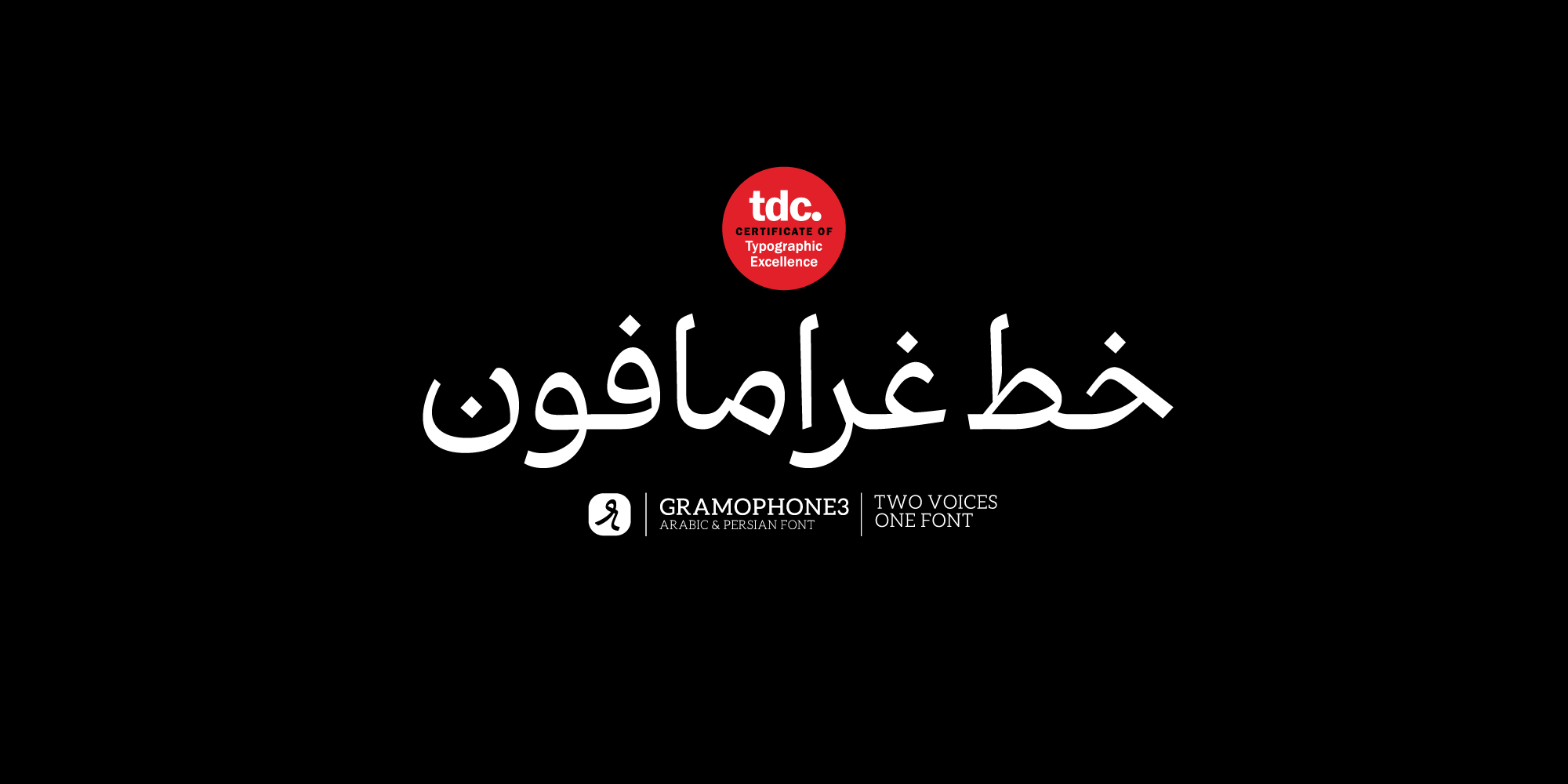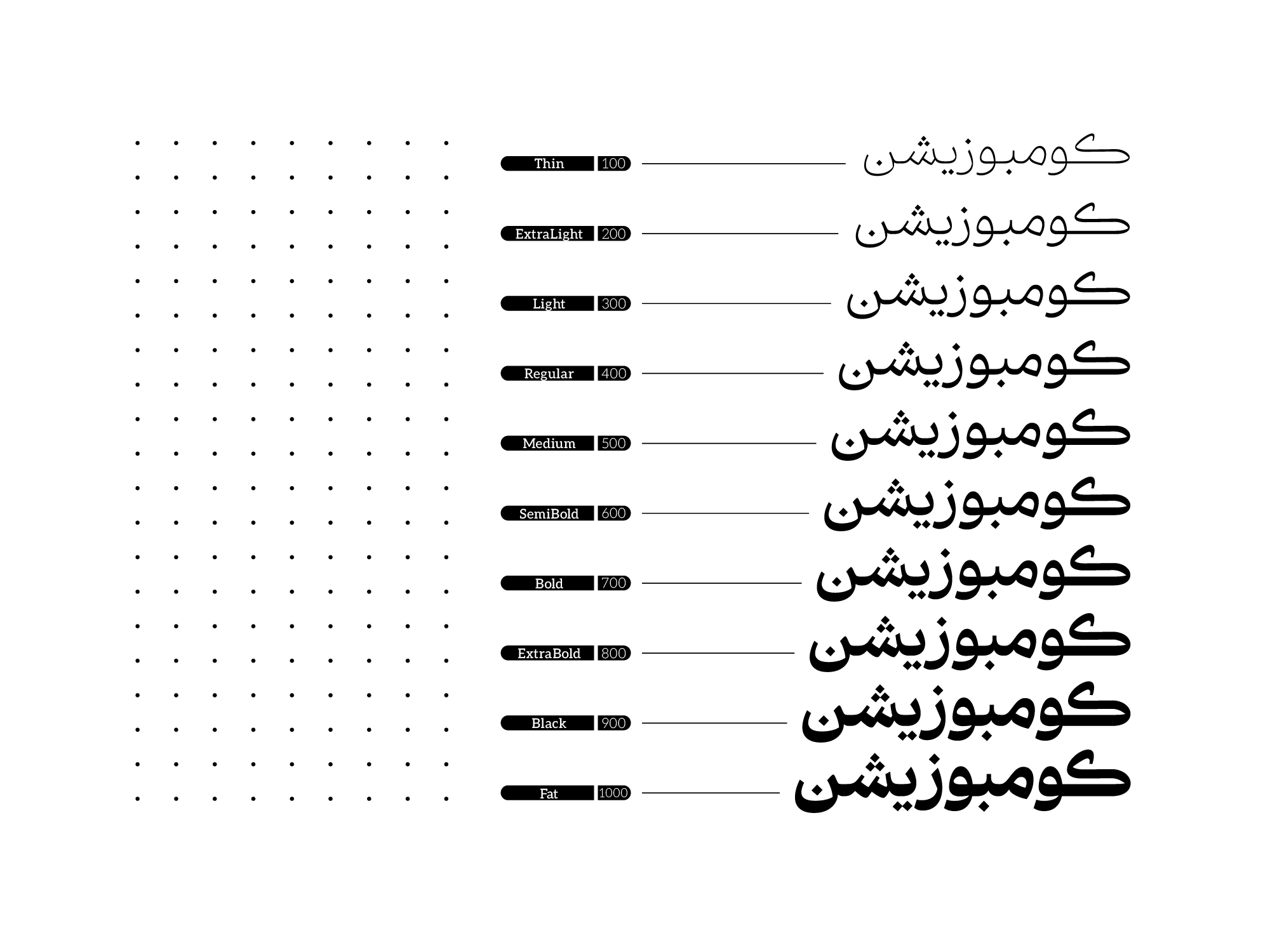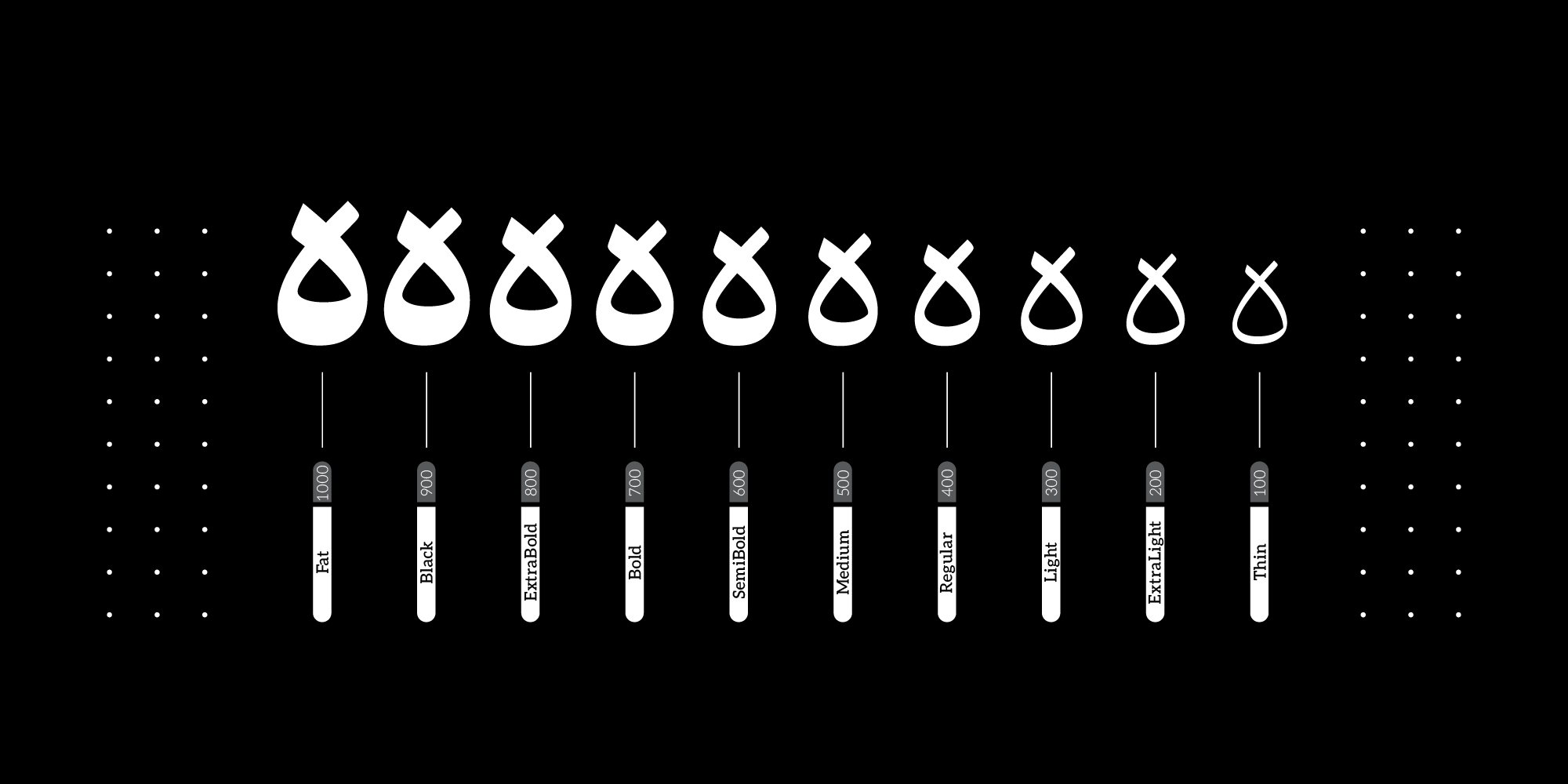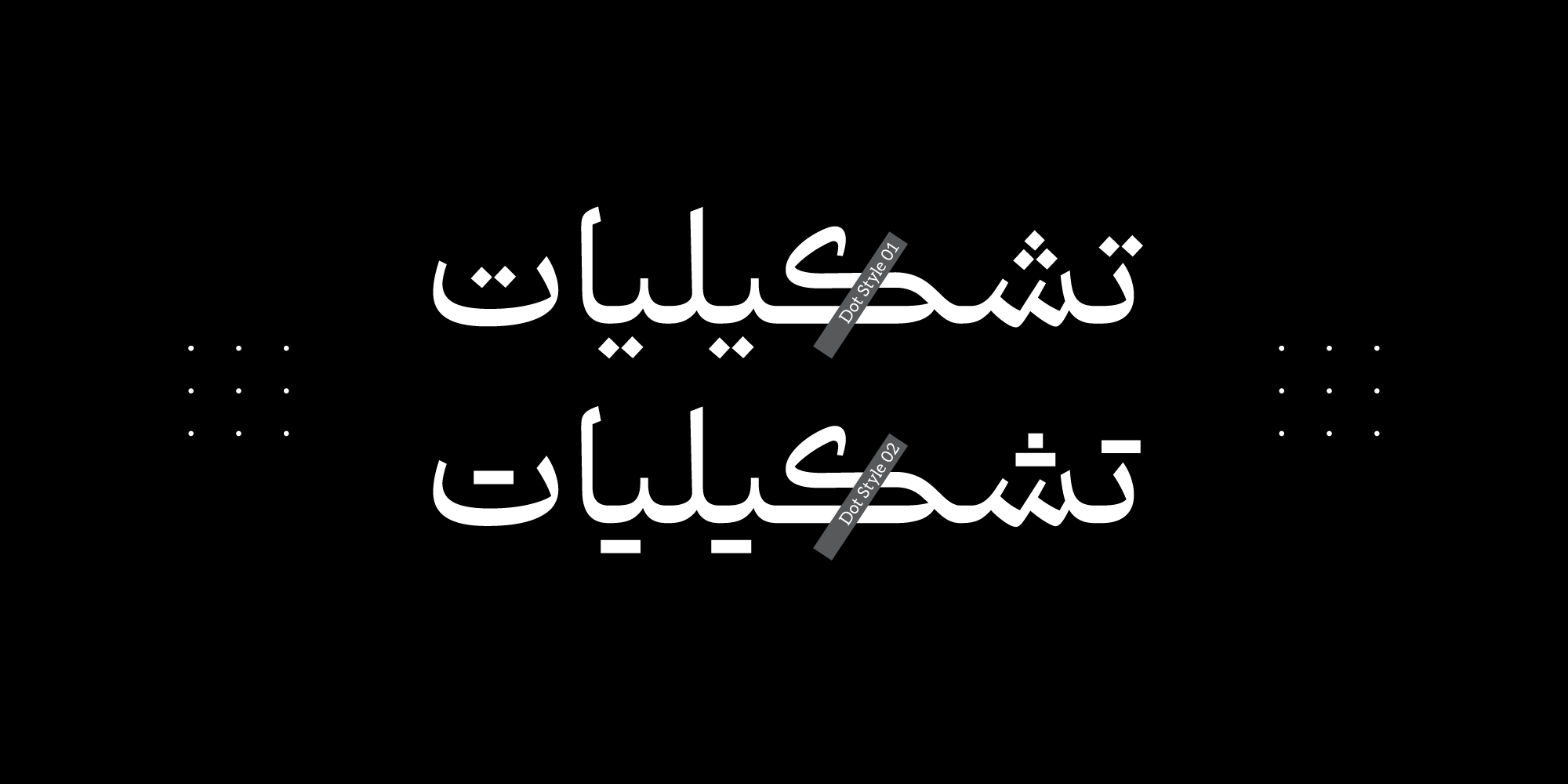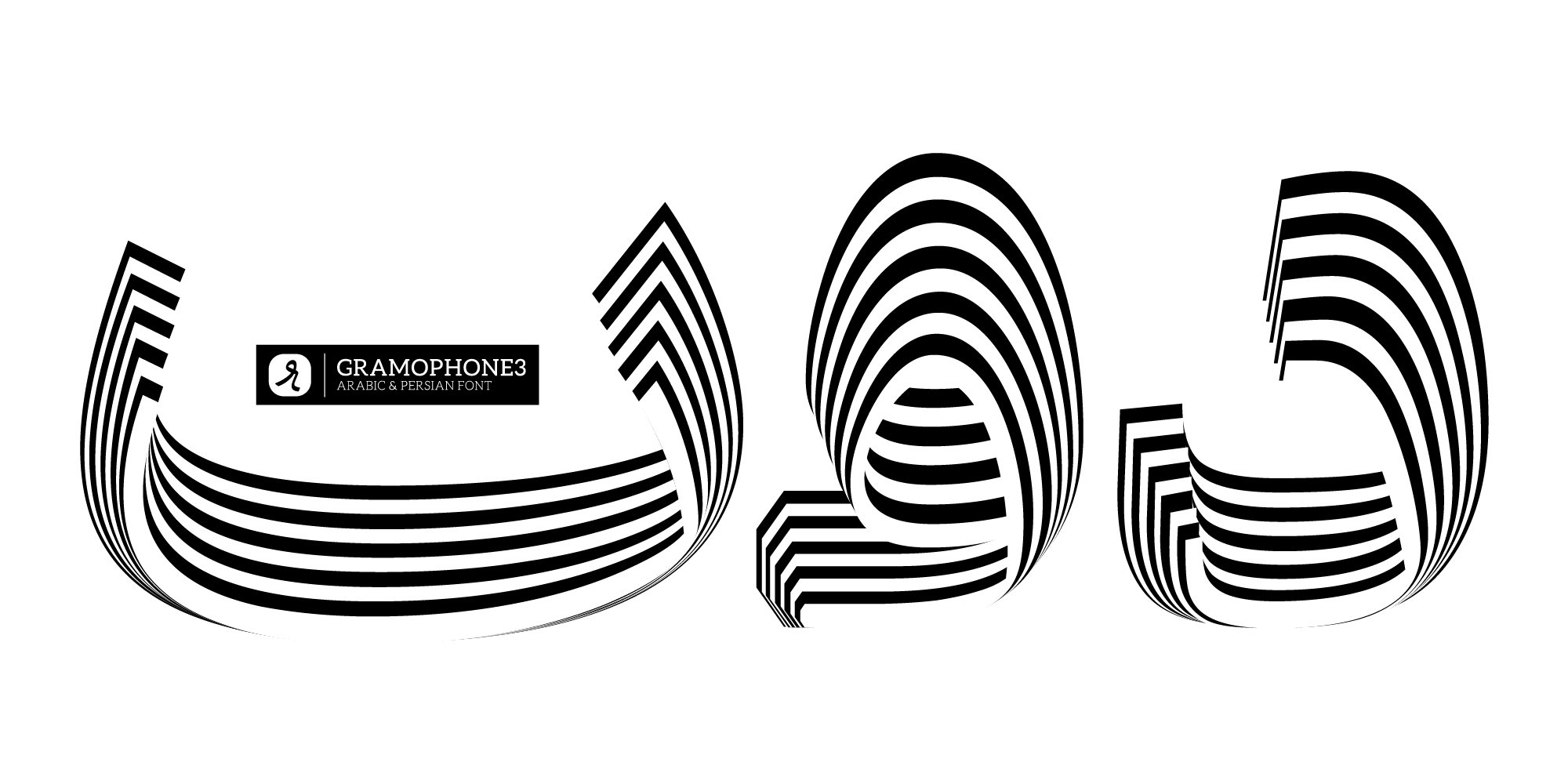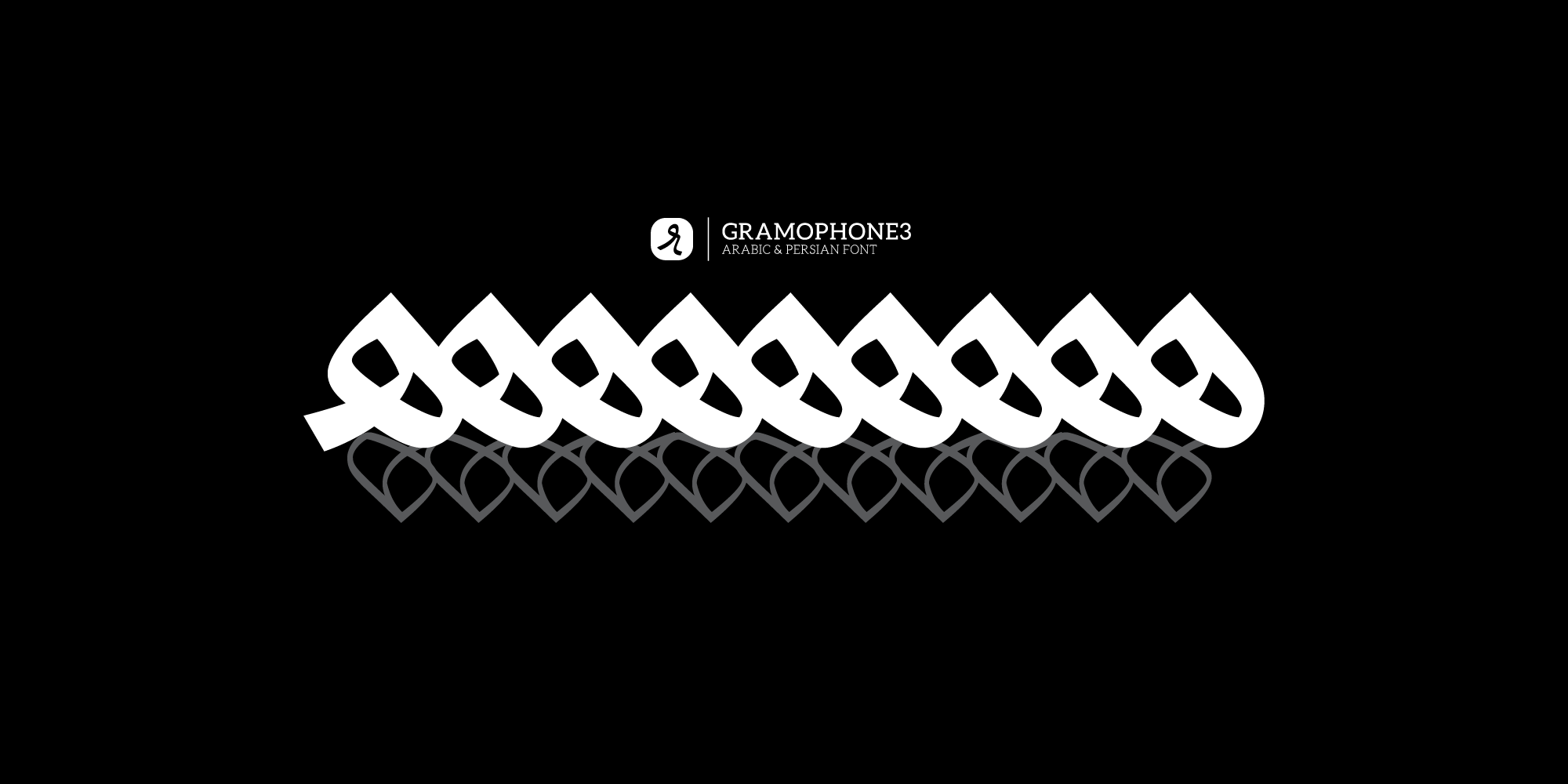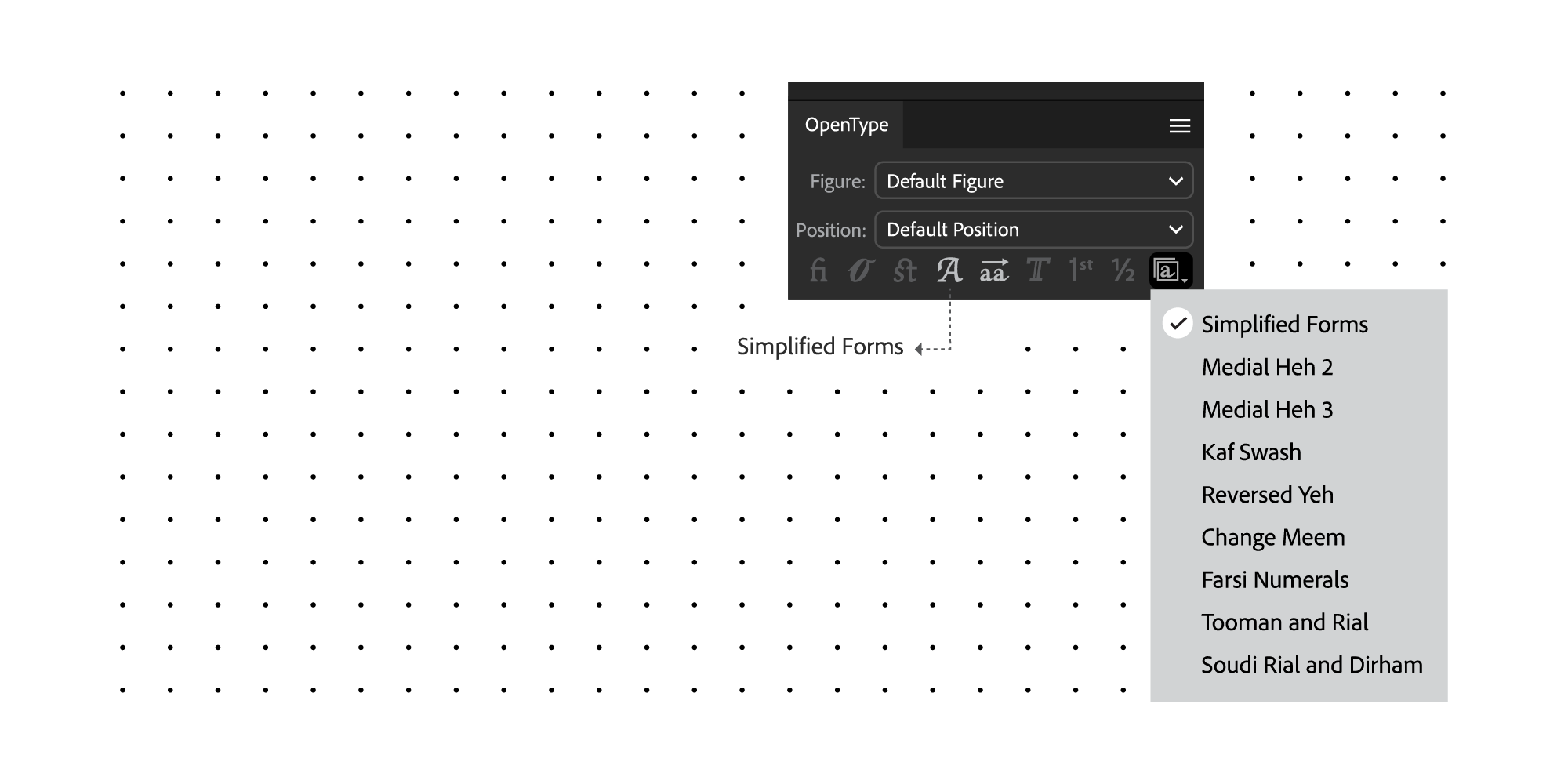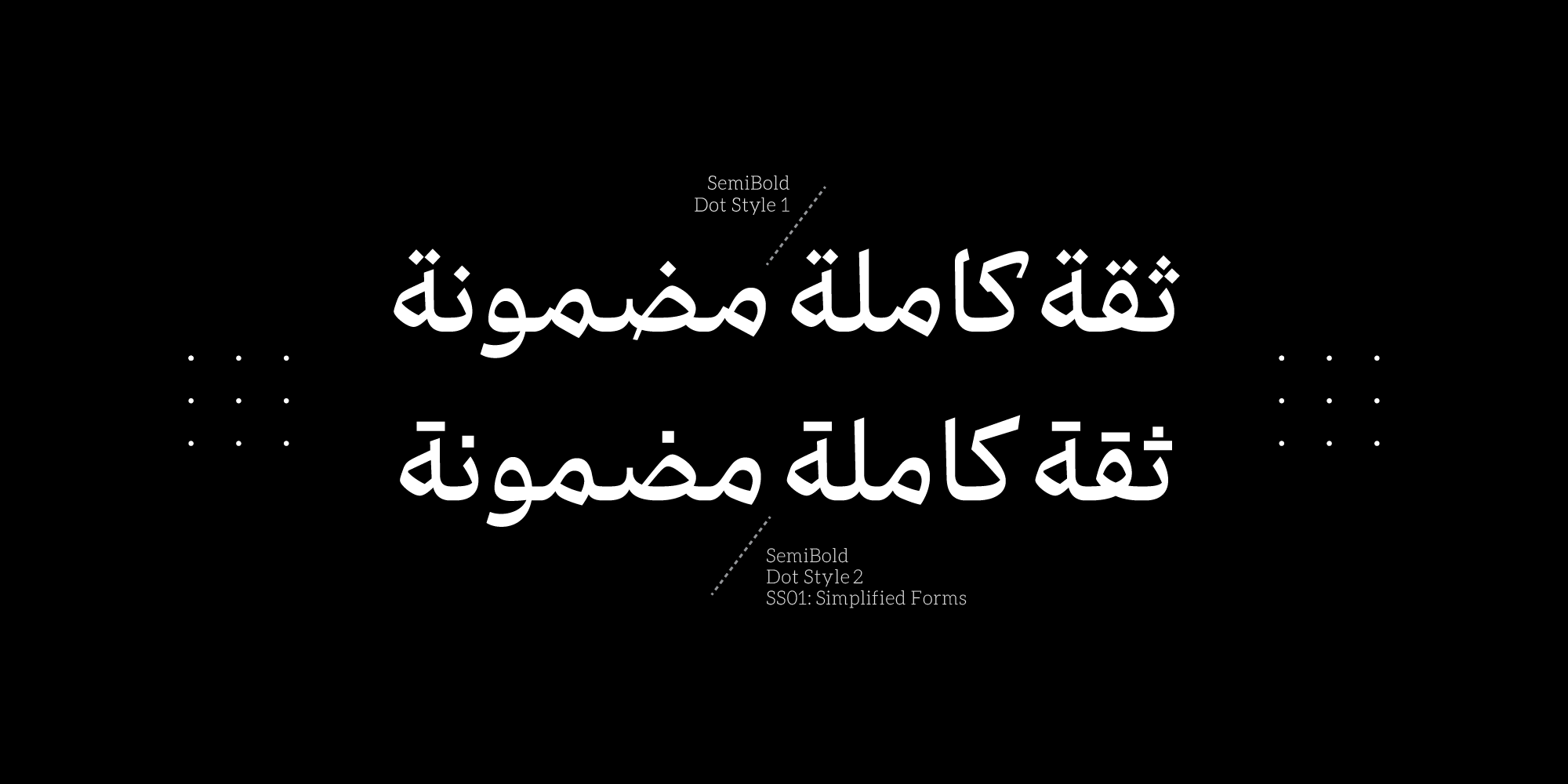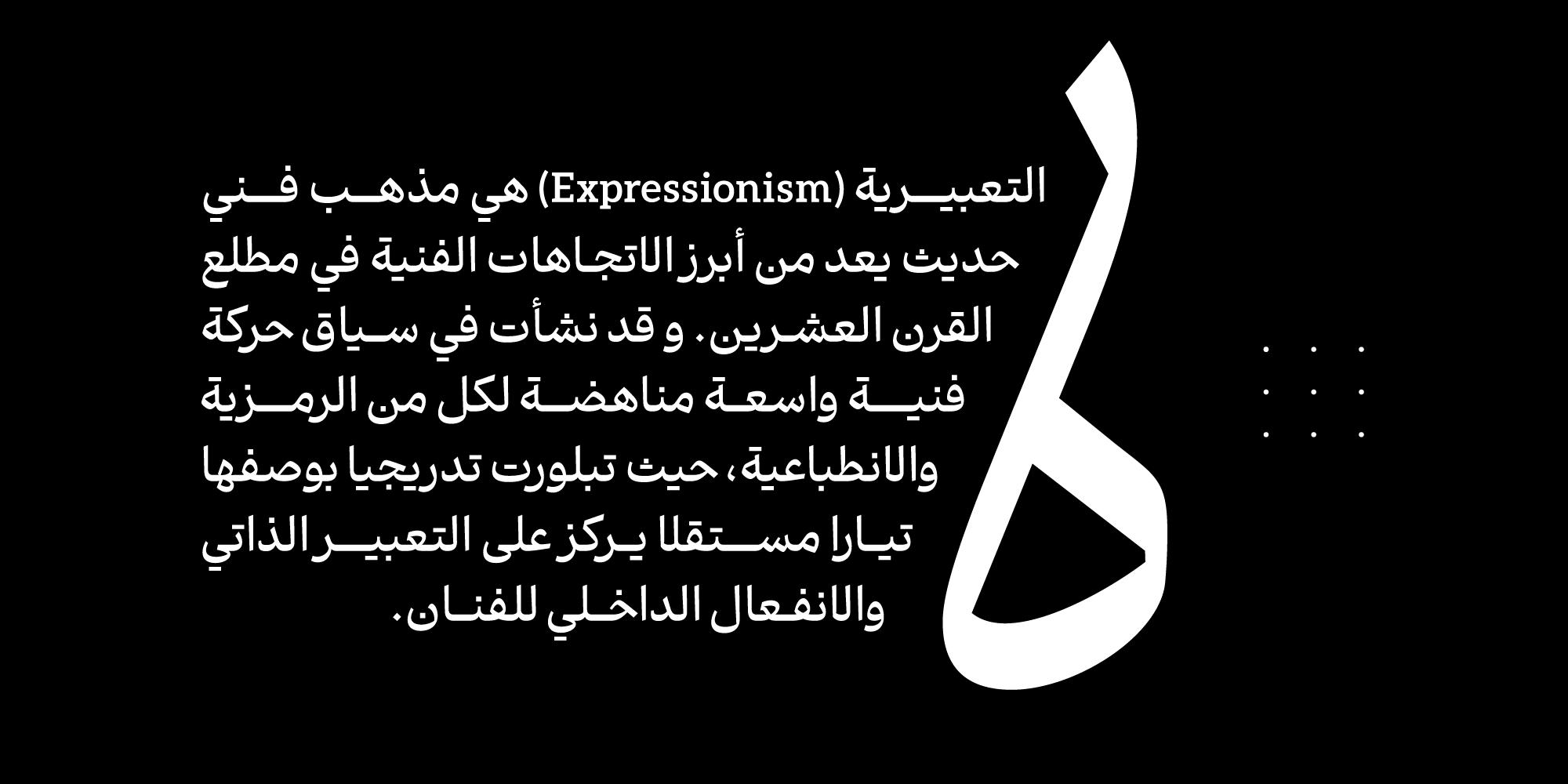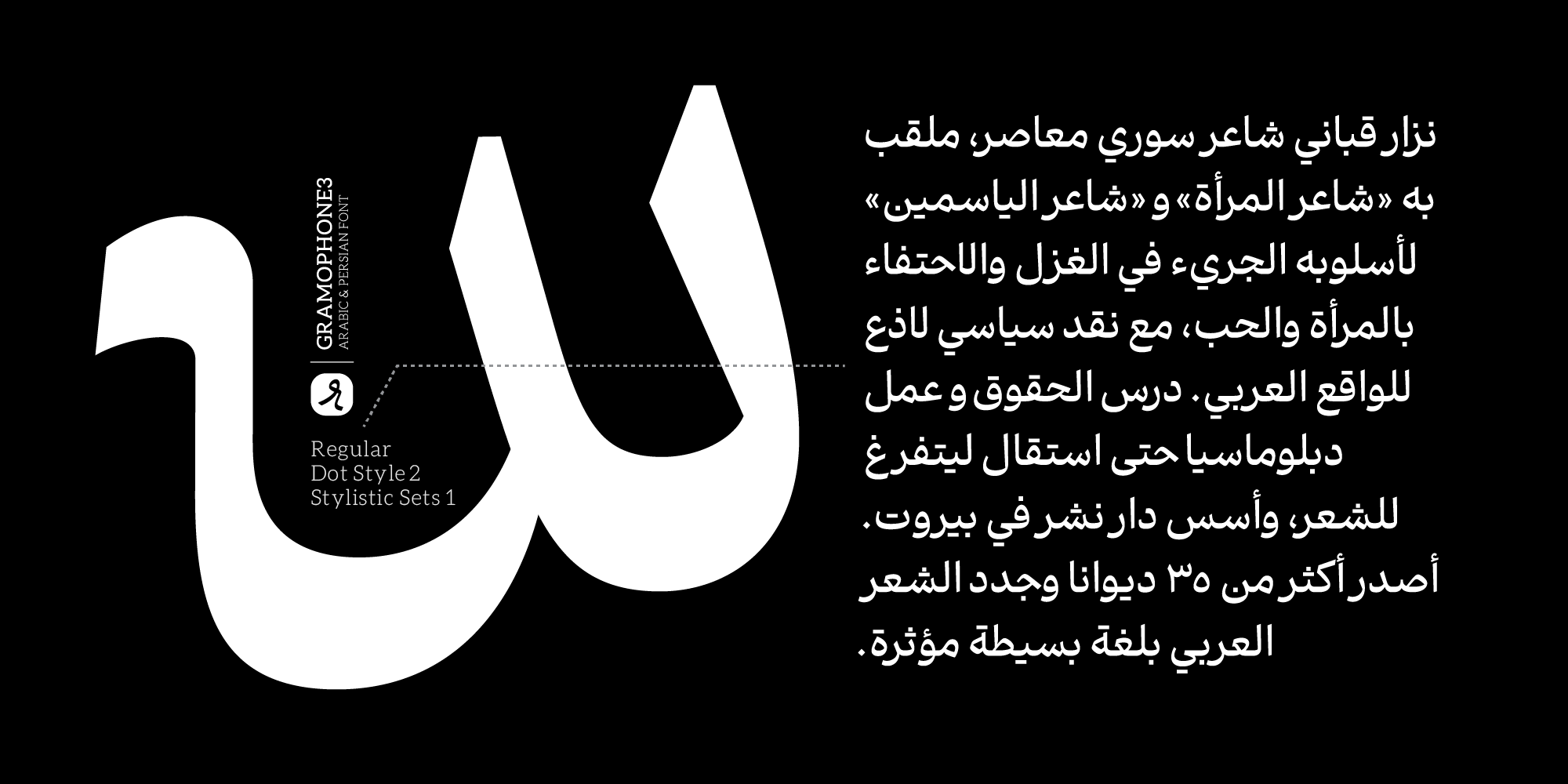
Gramophone
Implementation of a Multi-Master system based on three masters: Thin, Regular, and Fat
Gramophone 3 includes ten weights, two dot styles, and a variable font version. The weight structure is built upon three master designs to enable more precise control over form behavior and interpolation quality in the intermediate weights.
Practical alternate letters
By enabling the ss01: Simplified Forms feature, some letters are simplified, giving the font a more minimal appearance.
By activating Stylistic Sets 2 - 6, the second and third forms of heh, swash kaf, reversed yeh, as well as the alternate forms of isolated and final meem can be used.
By activating Stylistic Sets 7, Arabic and Latin numerals are converted to Persian numerals.
The custom Toman and Rial symbols are enabled via Stylistic Set 8, while the Saudi Riyal and UAE Dirham symbols are activated through Stylistic Set 9.
Enabling the Tabular Lining feature in OpenType gives you access to tabular numerals. These numerals all have the same width, making them ideal for tables, price lists, or any numeric columns that require precise alignment.
Gramophone 3 supports Persian, English, Arabic, Kurdish, and Urdu languages. For the Latin script, the open‑source Aleo font has been used, with shared modifications applied to the details of all characters.
New decorative shapes have been added to the font for filling typographic spaces, which are activated by inserting the ‘asterisk’ and ‘hamza’ characters.